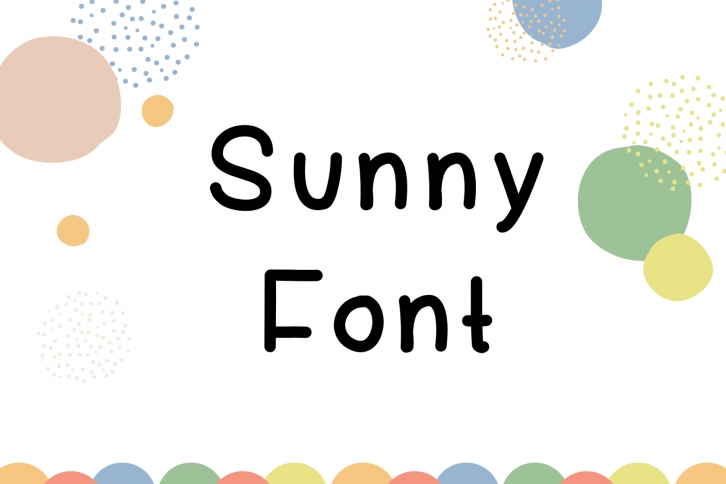
Sunny font is a handwritten font that is good for beautiful content related to education, craft, nature, love, and emotion. You can add these lovely letters to all your creative projects!